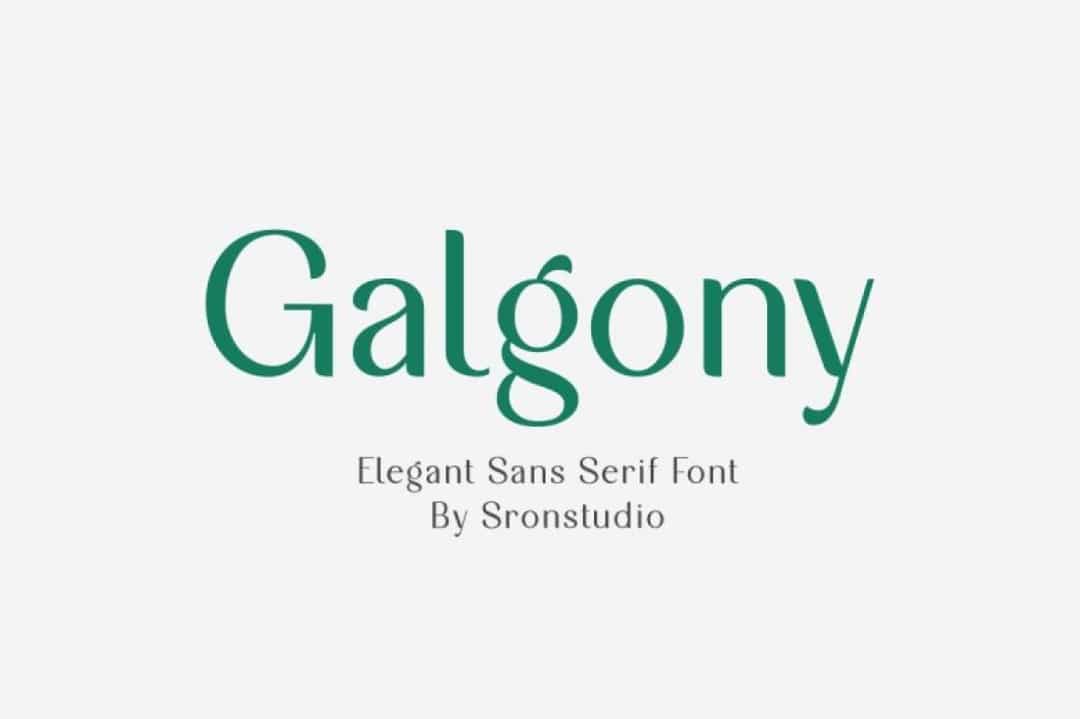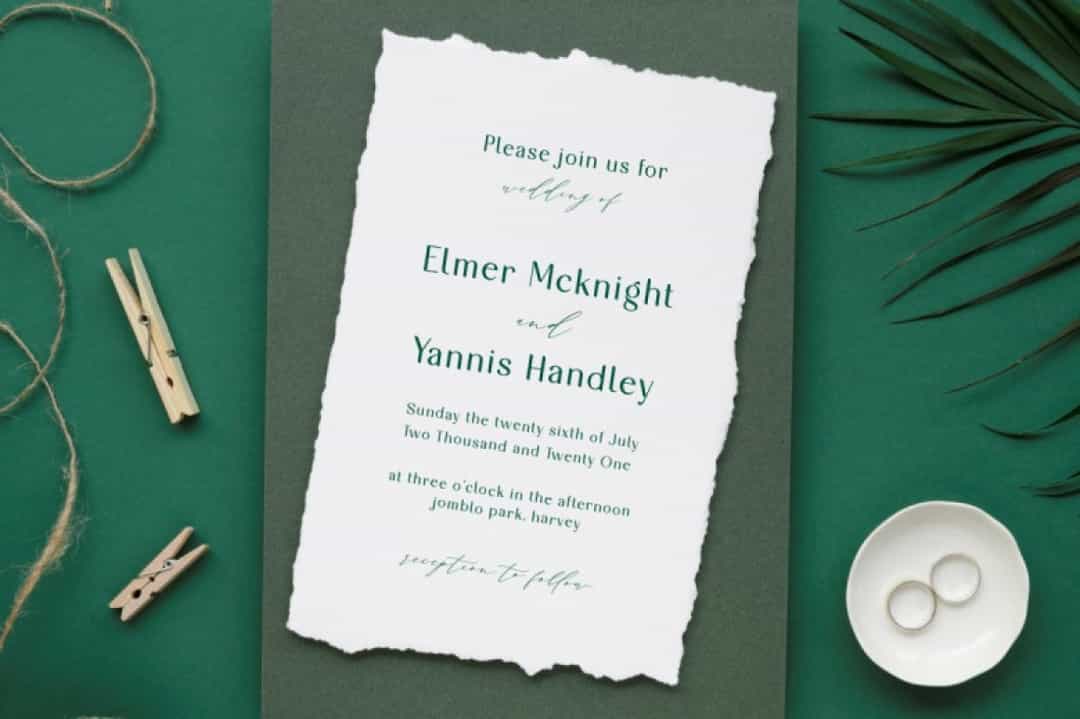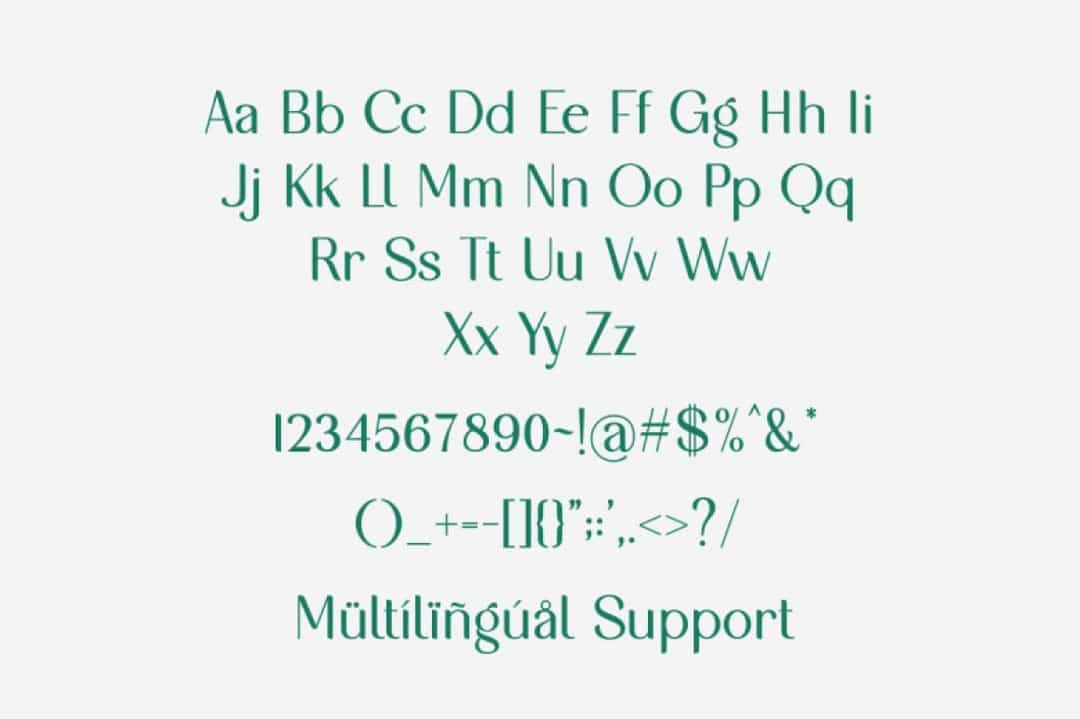
Discover Galgony Font, part of the Sans Serif collection—a versatile and unique font perfect for adding a personal touch to your projects. Download it for free and enjoy crafting designs with style, from invitations to social media posts. This font is available exclusively for personal use, giving you the freedom to create without limits. Unlock your creativity with Galgony Font today!
Galgony is an elegant sans serif font. It’s perfect for use in branding, invitations stationery, wedding invitations, social media posts, advertisements for products, labels, watermarks, photography, special events etc.